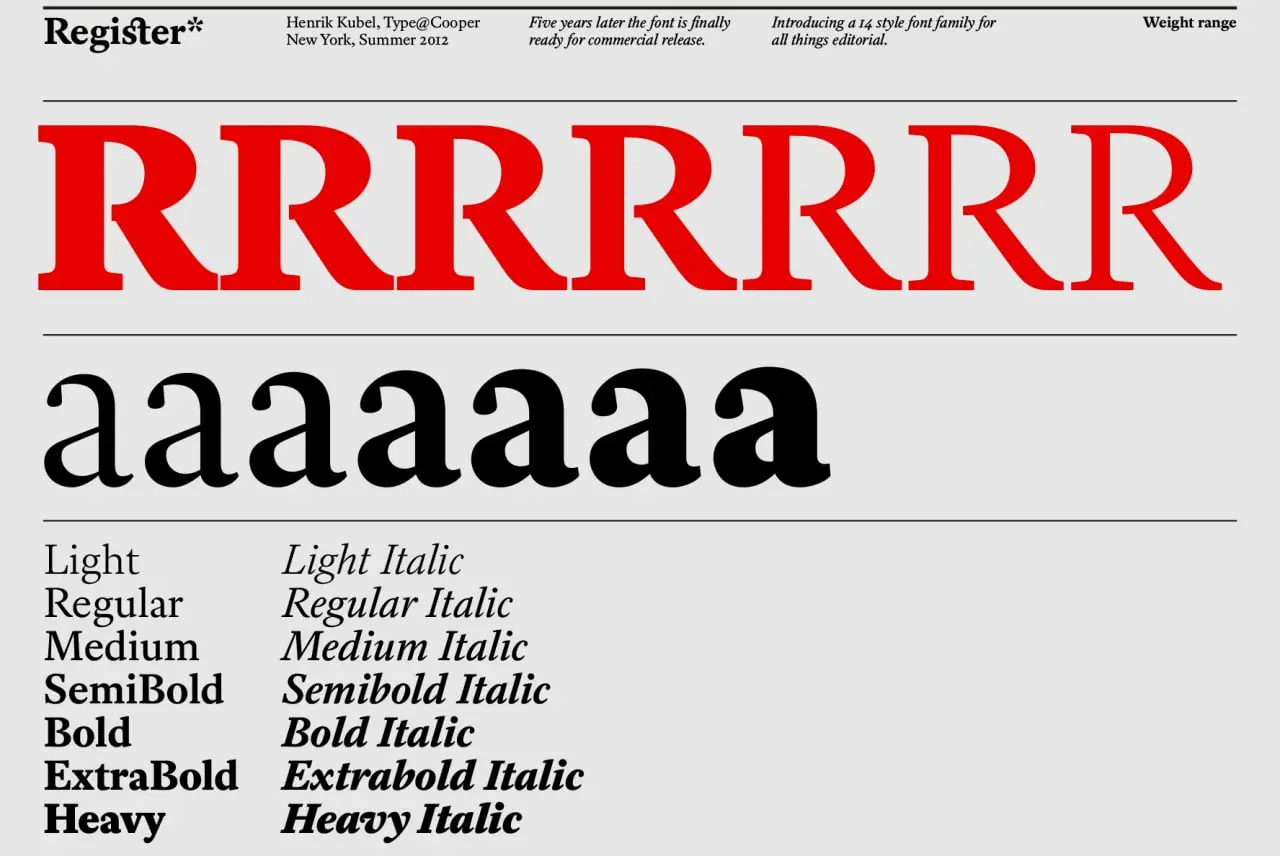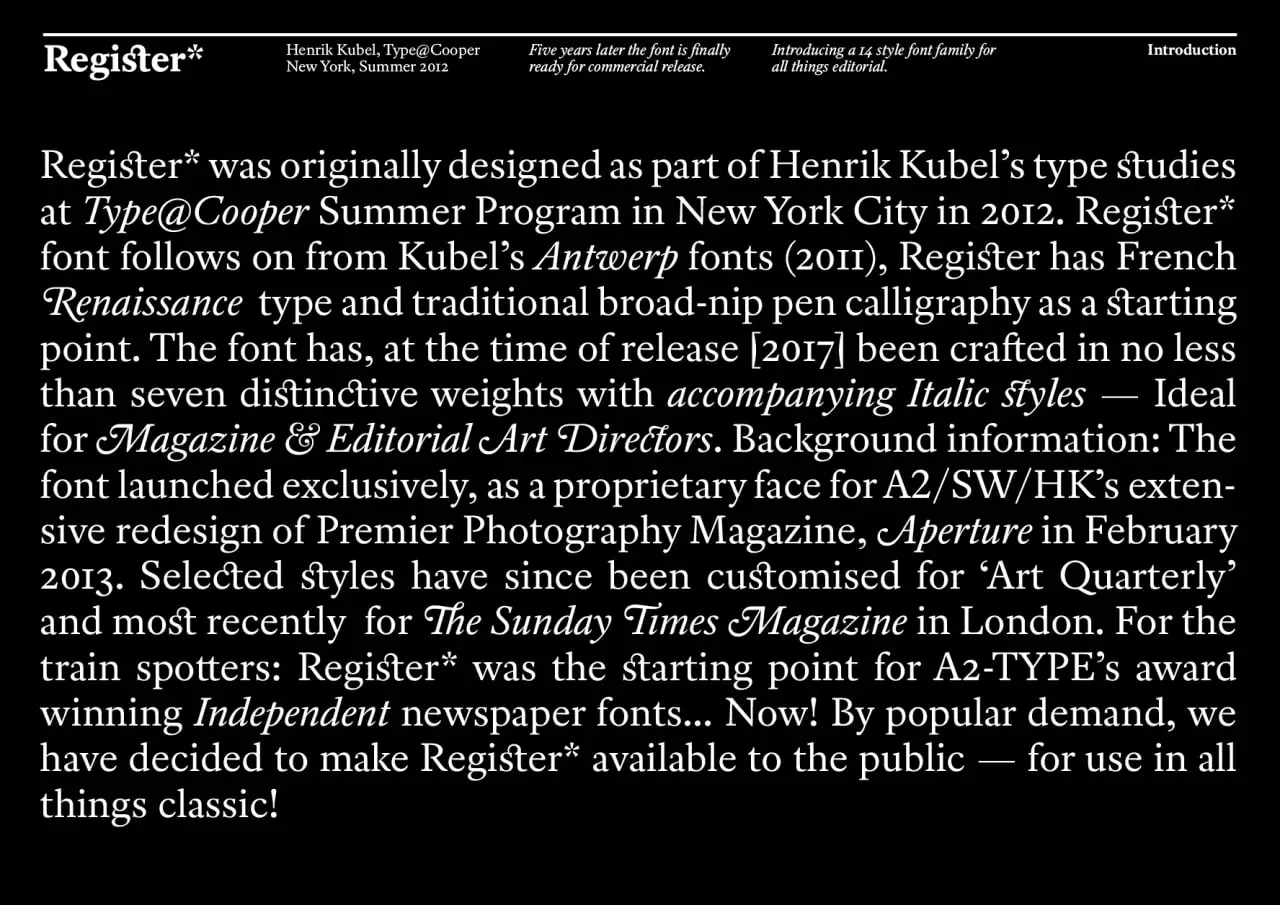
A2-Type Register Font Family
The A2-Type Register Font Family is a versatile typeface designed to bring a unique character to your projects. With a range of styles and weights, this font family is perfect for various applications, from branding to web design.
• Multiple weights for flexibility in design
• Stylish and modern aesthetic
• Well-suited for both headings and body text
• Styles: Regular, Bold, Italic, and more
Utilize the A2-Type Register Font Family for creating eye-catching logos, engaging websites, and impactful print materials. Its clean lines and contemporary style make it a great choice for modern design projects.